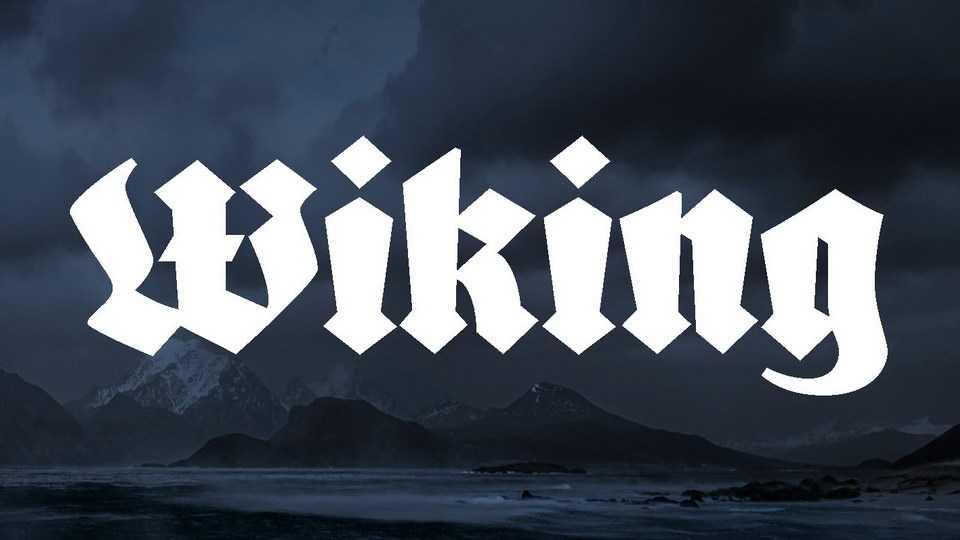
Download FDI Wiking font, a blackletter typeface, based on a design by Heinz König, originally published as “Wiking” in 1925 at the type foundry J.D. Trennert & Sohn.
Designer: Ralf Herrmann